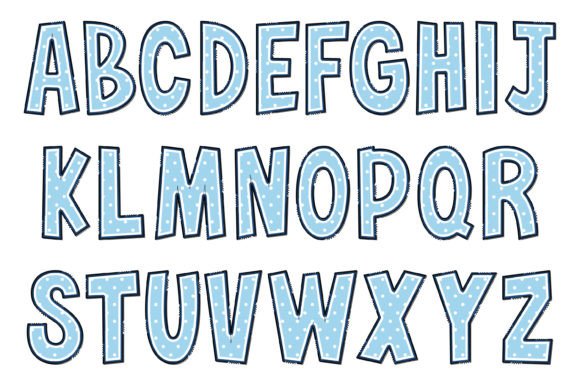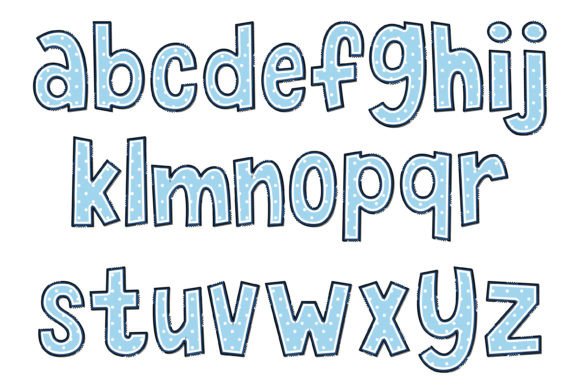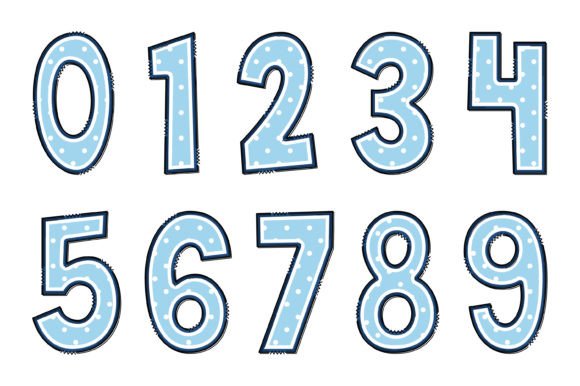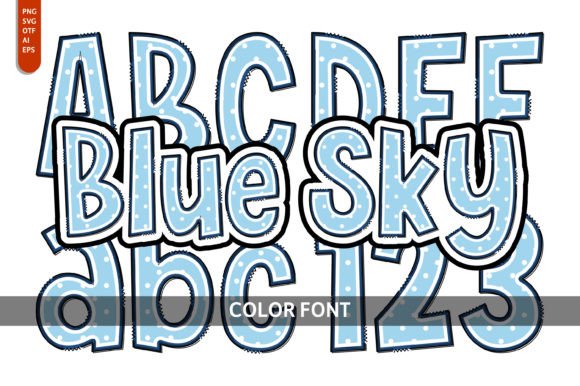
The Magic of Blue Sky Font: A Designer’s Delight
I’ll never forget the time I was working on a children’s book project, and my client asked for a font that would make the story come alive. I scoured the internet, tried out countless fonts, but nothing seemed quite right. That was until I stumbled upon Blue Sky Font. It was like a breath of fresh air – playful, colorful, and whimsical, with an effortless charm that immediately won me over. In this article, I’ll share my love for Blue Sky Font, its features, and how to make the most of it in your designs.
What I Love About Blue Sky Font ✨
- ✅ Whimsical and playful design that’s perfect for children’s books, posters, invitations, and greeting cards
- ✅ Colorful and vibrant, adding a pop of fun to any design
- ✅ Easy to read, making it an excellent choice for young audiences
A Few Quirks to Keep in Mind ⚠️
While Blue Sky Font is an amazing addition to any design project, there are a few things to keep in mind:
One of the best things about Blue Sky Font is its range of OpenType features and glyphs. These allow you to customize your text and add a touch of personality to your design. Some of the features you can explore include:
- Stylistic alternates: swap out letters for alternative designs
- Glyphs: add decorative elements like stars, hearts, or animals to your text
- Ligatures: combine letters for a more artistic look
The Story Behind Blue Sky Font
Blue Sky Font was created with the intention of bringing a sense of wonder and magic to designs. The designer, inspired by the beauty of a clear blue sky, wanted to craft a font that would evoke feelings of joy and playfulness. With its colorful and whimsical design, Blue Sky Font is sure to delight audiences of all ages.